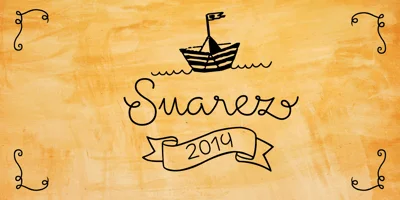
Suarez Font
Suarez Font is perfect for luxury fashion branding, high-end restaurant menus, premium product packaging, jewelry advertisements, cosmetics labels, wine bottle designs, hotel signage, spa and wellness centers, elegant wedding invitations, and any project requiring sophisticated Latin flair and timeless elegance.
What makes Suarez Font exciting is its captivating blend of European sophistication and Latin passion that creates an irresistible visual appeal. The typeface features graceful curves and refined letterforms that evoke the romance of Mediterranean culture while maintaining contemporary relevance. Its elegant character design speaks to discerning audiences who appreciate fine craftsmanship and cultural richness, making it ideal for luxury brands seeking to establish emotional connections through authentic, sophisticated typography.
Suarez Font family includes regular, italic, and bold weights with complete Latin character support, including accented letters, ligatures, and stylistic alternates. The typeface features carefully balanced proportions and elegant flourishes that enhance readability while adding distinctive personality to any design application.
Whether you're creating upscale hospitality materials, developing premium brand identity, or designing editorial layouts for lifestyle publications, Suarez Font provides the perfect typographic foundation for projects that demand refinement and cultural authenticity. The font's versatile elegance translates beautifully across print and digital media, ensuring your brand communicates sophistication and heritage. Its distinctive Latin influence makes it particularly effective for international markets and multicultural audiences seeking genuine, premium design experiences that honor tradition while embracing modernity.